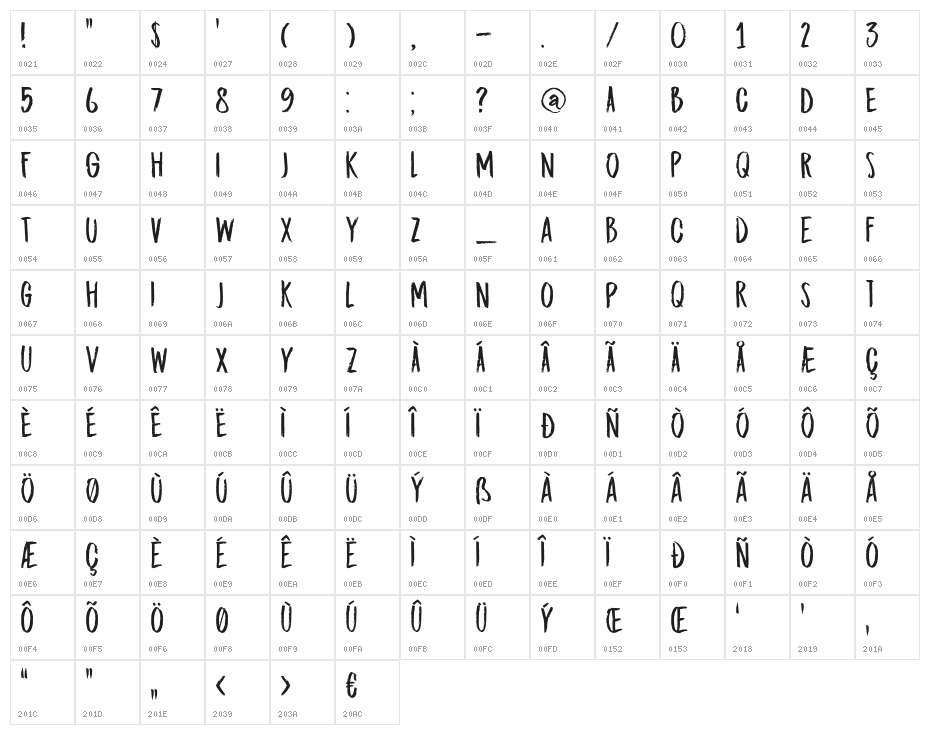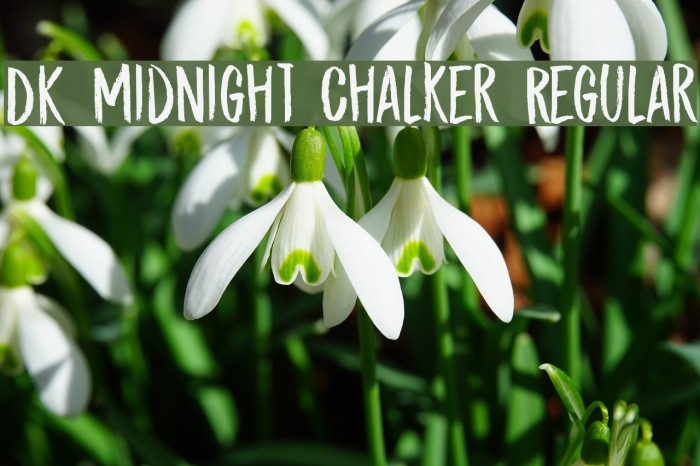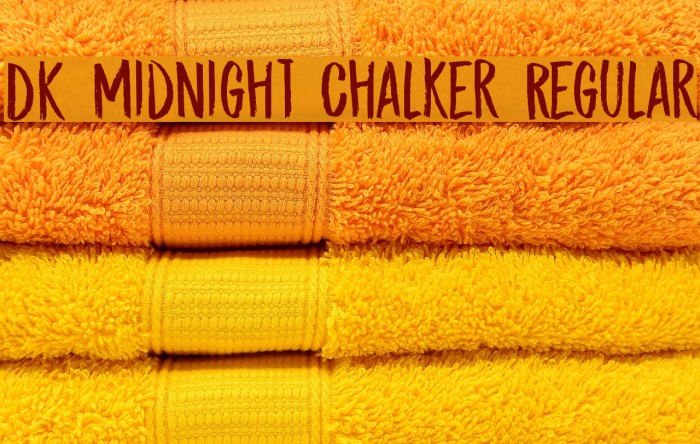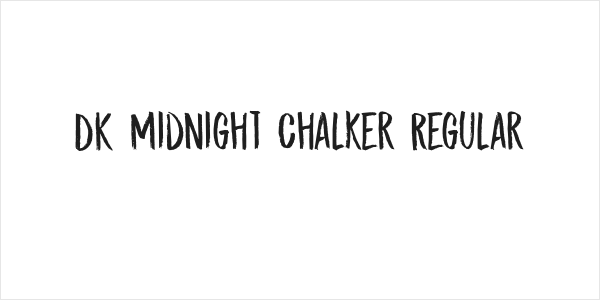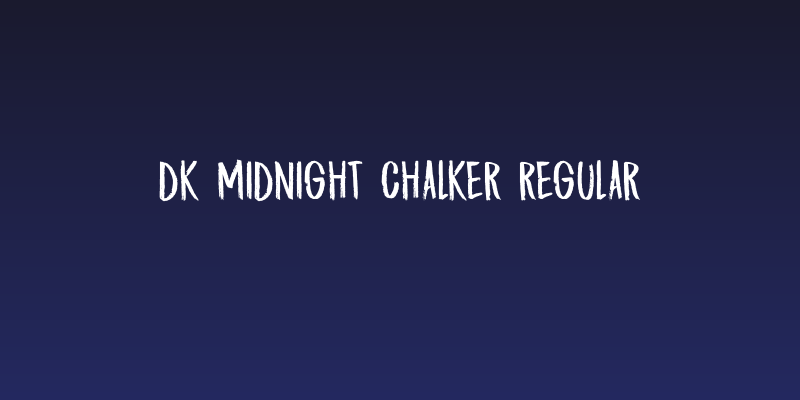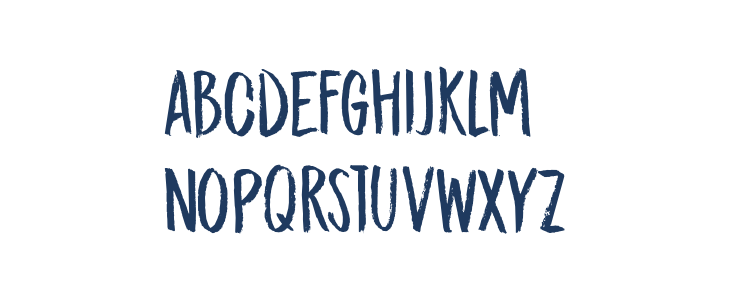
DK Midnight Chalker Regular Font
DK Midnight Chalker Regular Description
This font features a bold, hand-drawn style with a textured, chalk-like appearance. The letters are slightly irregular, giving a casual and artistic feel. The uppercase and lowercase characters maintain a consistent height, while the numbers and special characters complement the overall design. The strokes are thick and uneven, adding to the rustic and organic look. This font is ideal for projects that require a creative and informal touch, such as posters, invitations, and artistic branding. Its unique style makes it stand out, capturing attention with its dynamic and lively appearance.
| Overall Style | Artistic, Casual |
| Proposed Projects | Ideal for posters, invitations, artistic branding, and creative projects. |